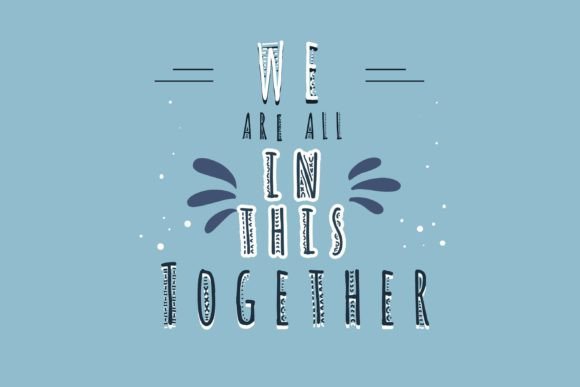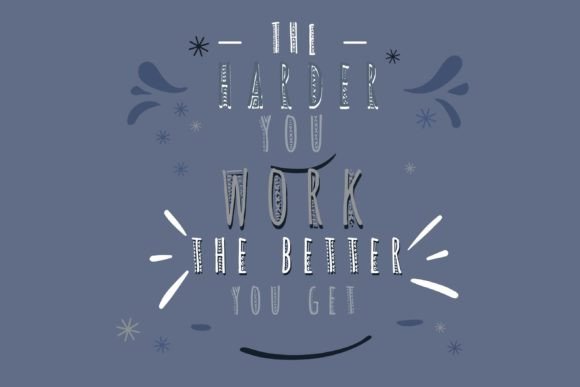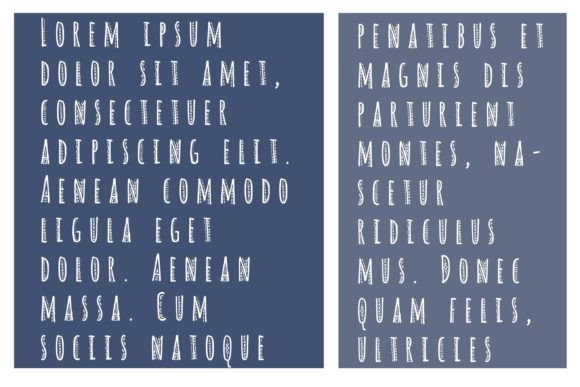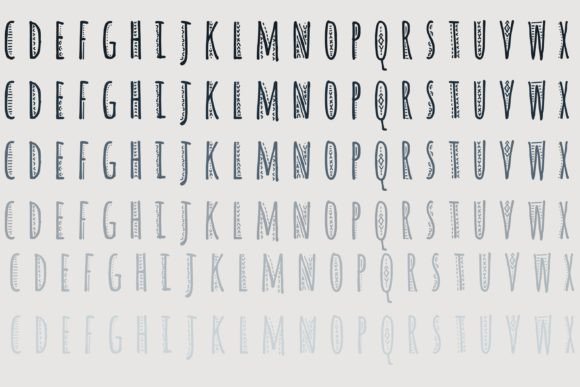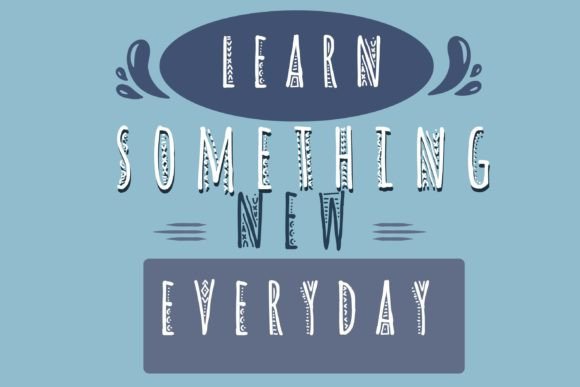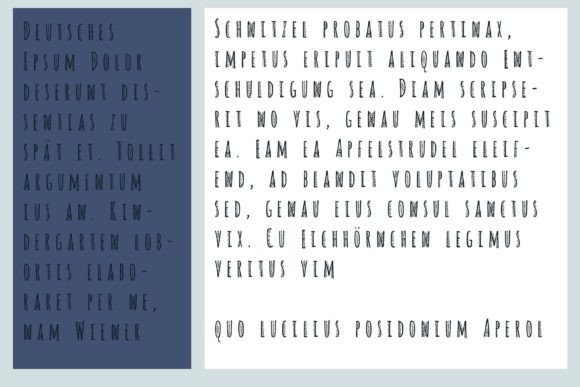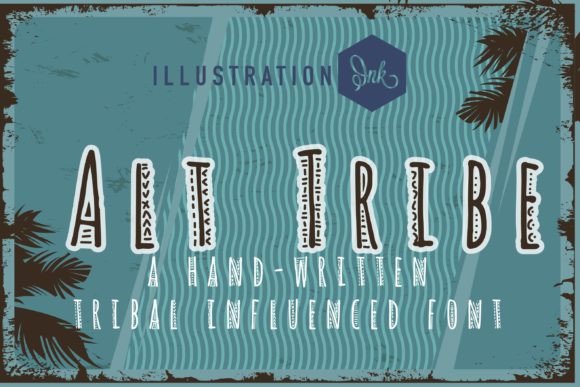
Unlocking the Fun and Quirkiness of Alt Tribe Font
I’ll never forget the time I was working on a project for a music festival poster, and I was struggling to find the right font that captured the essence of the event. The client wanted something fun, quirky, and adventurous, but I was coming up blank. That’s when I stumbled upon Alt Tribe Font, and it was love at first sight! 💡
With its unique, tribal-inspired letterforms and playful mix of bold and thin strokes, Alt Tribe instantly added an adventurous spirit to my design. I knew right then and there that I had found the perfect font for the job. In this article, I’ll share my experience with Alt Tribe, its features, and how to make the most of it in your designs.
An Honest Review of Alt Tribe Font
What I Love About Alt Tribe ✨
- Unique and quirky letterforms that add a touch of personality to any design 🎨
- Perfect blend of bold and thin strokes for a dynamic look 🔥
- Attention-grabbing and perfect for posters, logos, and headlines 📣
- Easy to read, even in larger or smaller sizes 📚
- May not be suitable for body text or longer paragraphs due to its display font nature 📄
- Some letters may require manual kerning for optimal spacing ⚠️
The Backstory of Alt Tribe Font
Alt Tribe Font was designed by a team of creatives who wanted to capture the essence of tribal art and street culture. Inspired by the vibrant colors and bold patterns of tribal designs, they created a font that would add a touch of adventure and quirkiness to any project.
Q: What type of projects is Alt Tribe best suited for?
A: Alt Tribe is perfect for attention-grabbing posters, logos, and headlines. It’s ideal for projects that require a fun, quirky, and adventurous vibe.
Q: Can I use Alt Tribe for body text?
A: While Alt Tribe is a beautiful font, it’s primarily designed as a display font. It may not be suitable for body text or longer paragraphs due to its bold and playful nature.